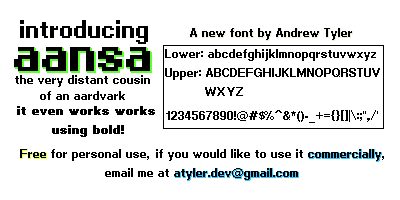
Aansa, credited to Pixelmix in 2010, is a free wide pixel font with the stark geometry of an early computer interface. Its letters spread horizontally, with long straight runs and broad rectangular interiors. Narrow joins and abrupt cut-ins keep the silhouettes lively despite their substantial width.
Circuit diagrams and angular interface graphics share its squared structure, making it a useful face for game title cards and technology posters. It also suits electronic music artwork and arcade merchandise. Designers working in retro-computing, indie games, or digital-culture publishing will find its unmistakably screen-based forms especially relevant.
Use the font at 12 pt. Turn off anti-aliasing at other sizes.
aansa is a small pixel font best used at 12pt.